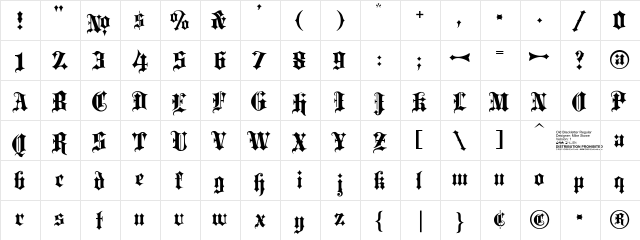
LHF Old Blackletter Regular
Design Context for LHF Old Blackletter Typeface
LHF Old Blackletter draws on the rich tradition of blackletter calligraphy, with dense, angular strokes that evoke medieval manuscripts and old-world craftsmanship.
A natural fit for music packaging, gothic editorial design, and any project that needs historical weight.
Font Pairing: Pair with a clean neutral sans-serif for body copy to let LHF Old Blackletter's character lead without overwhelming the composition.
Pro Tip: Reserve LHF Old Blackletter for display and logo use — pair it with a clean sans-serif for body copy to prevent the composition from feeling oppressive.